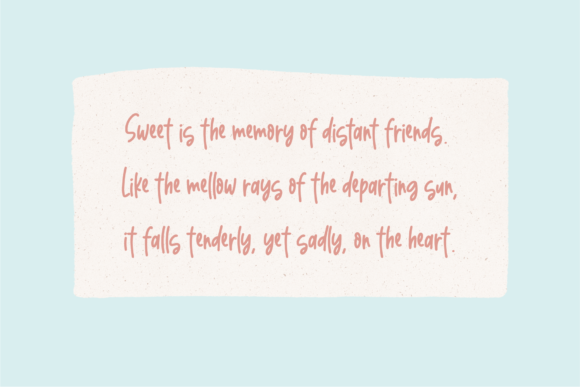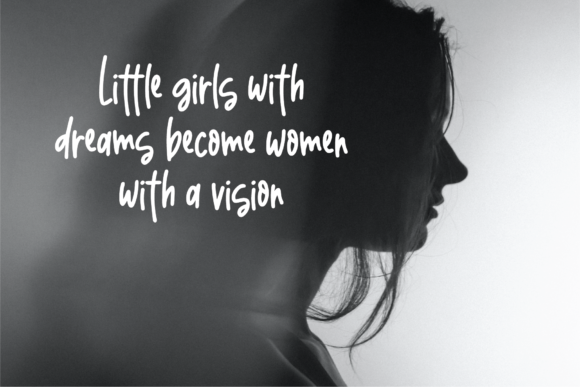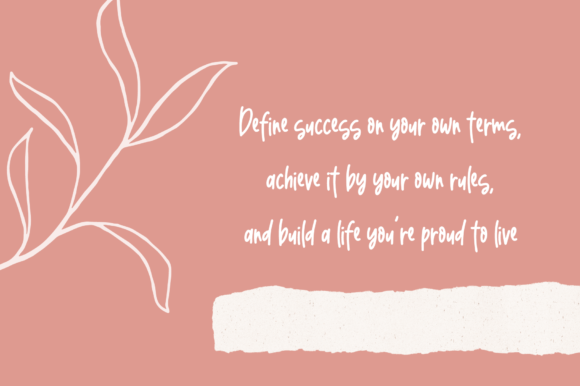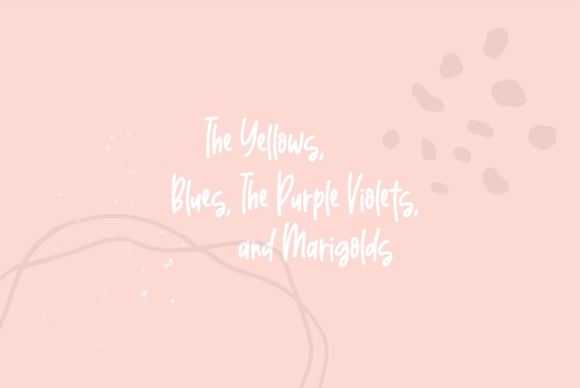
Ladylike Font
About Ladylike Font
Ladylike is a sweet, natural and friendly handwritten font. Dainty and joyful, this font will be ideal for writing wedding invitations, cards or any other design that may need a romantic, personalized touch!